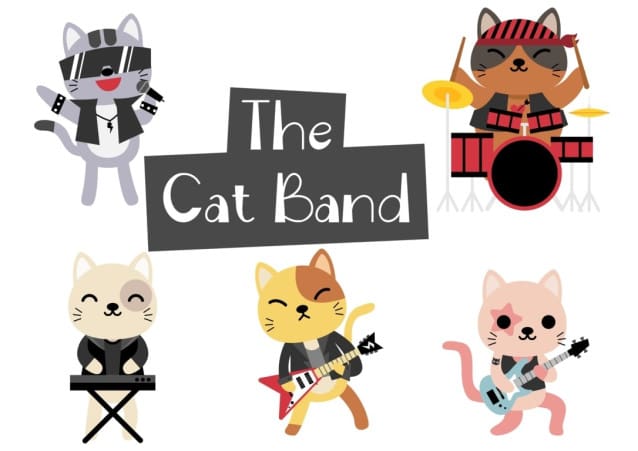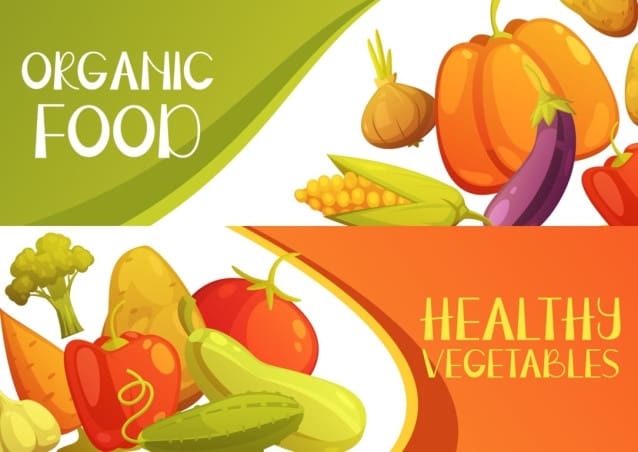
Future Straw Font
Future Straw Font, a handcrafted font created with love. This personalized handwritten/hand-drawn font captures a distinctive and slim style that brings a joyful, cheerful, and handmade touch to your designs. Its versatility makes it perfect for a wide range of projects, from playful logos and vibrant posters to casual notes and more. Embrace the whimsy and creative spirit of Future Straw as it injects your designs with a sense of fun and originality, giving your creativity the opportunity to truly shine.